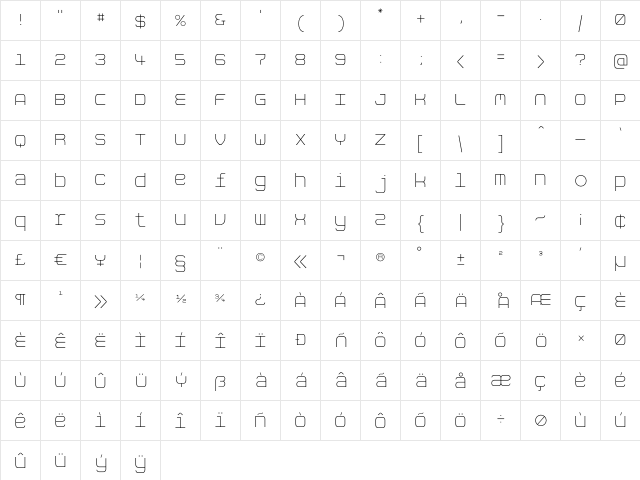
Aspirin-Refill Halfdose
Design Context for Aspirin-Refill Typeface
Aspirin-Refill takes a measured approach to typography — its balanced proportions and neutral character make it a reliable workhorse for both digital and print work.
Pro Tip: Use Aspirin-Refill in both headline and body roles to test its range before committing to a single application.